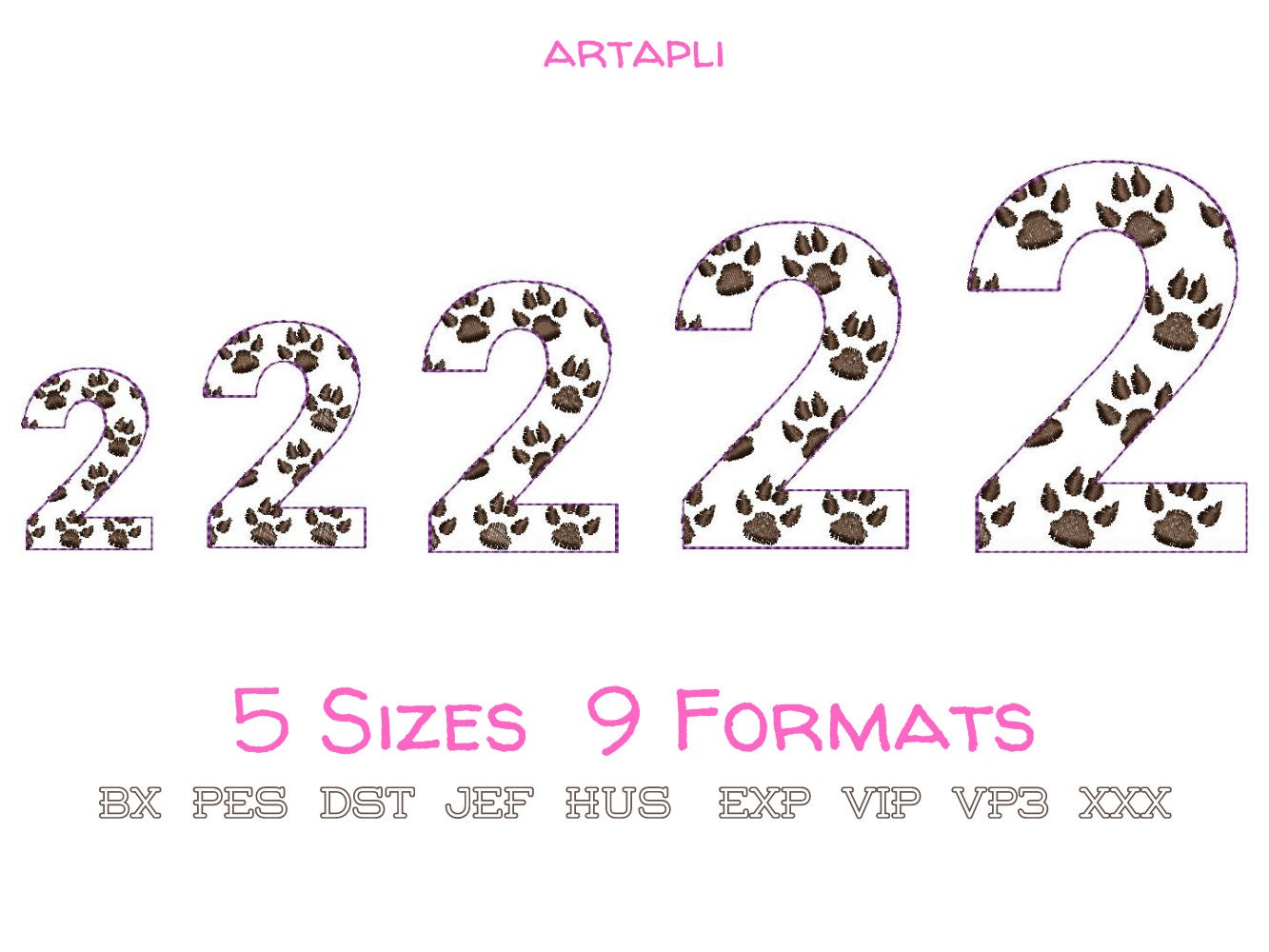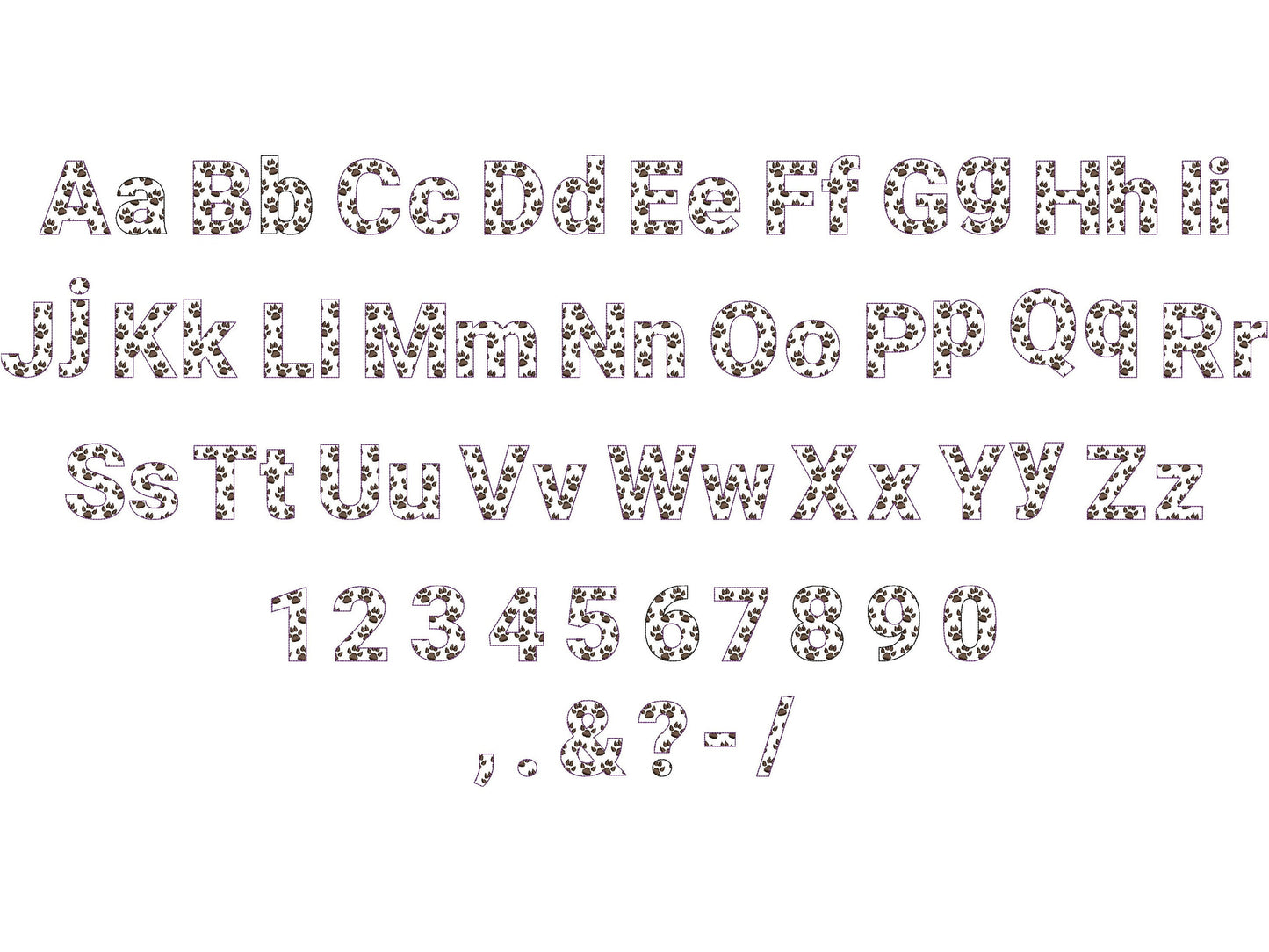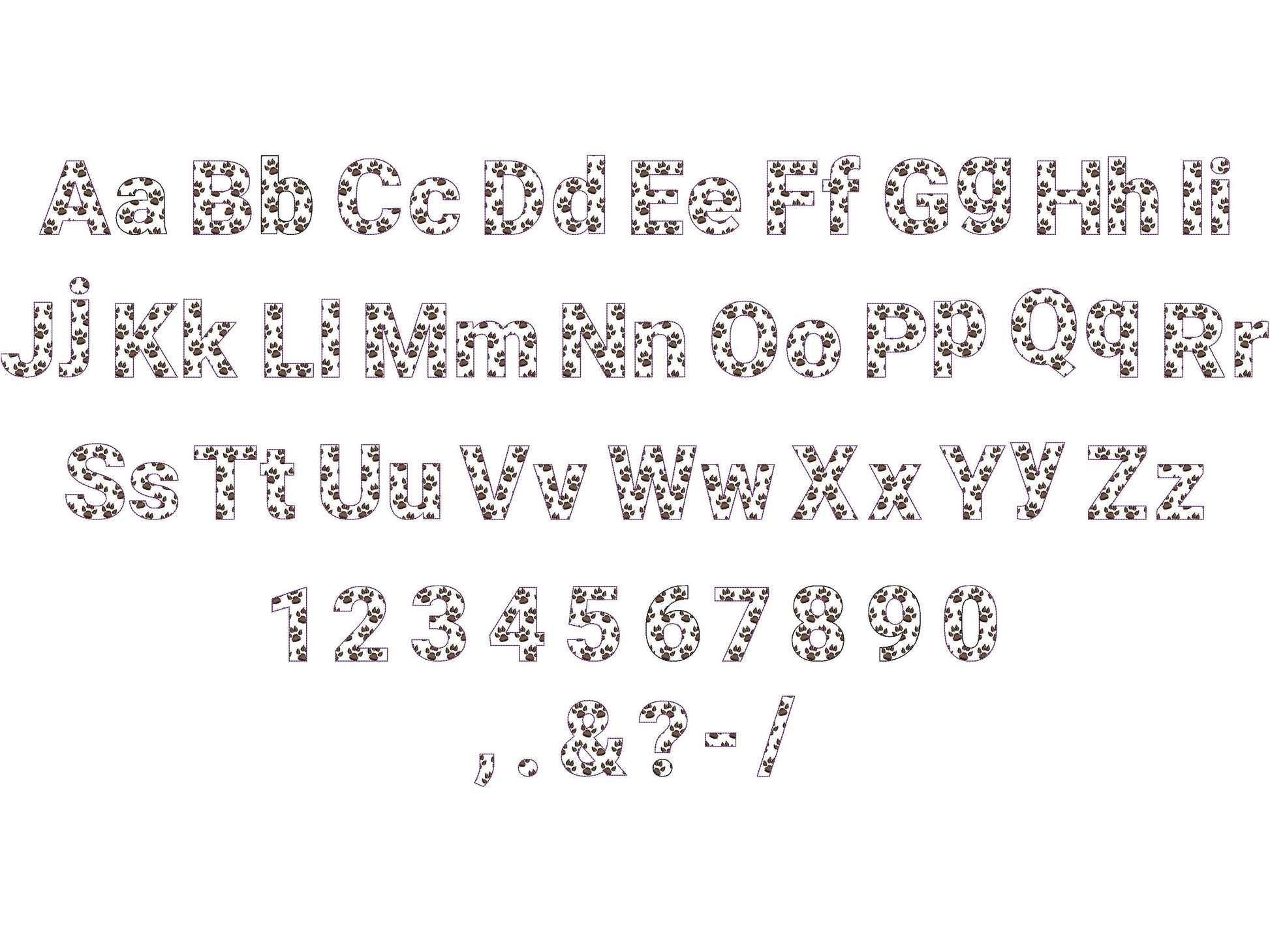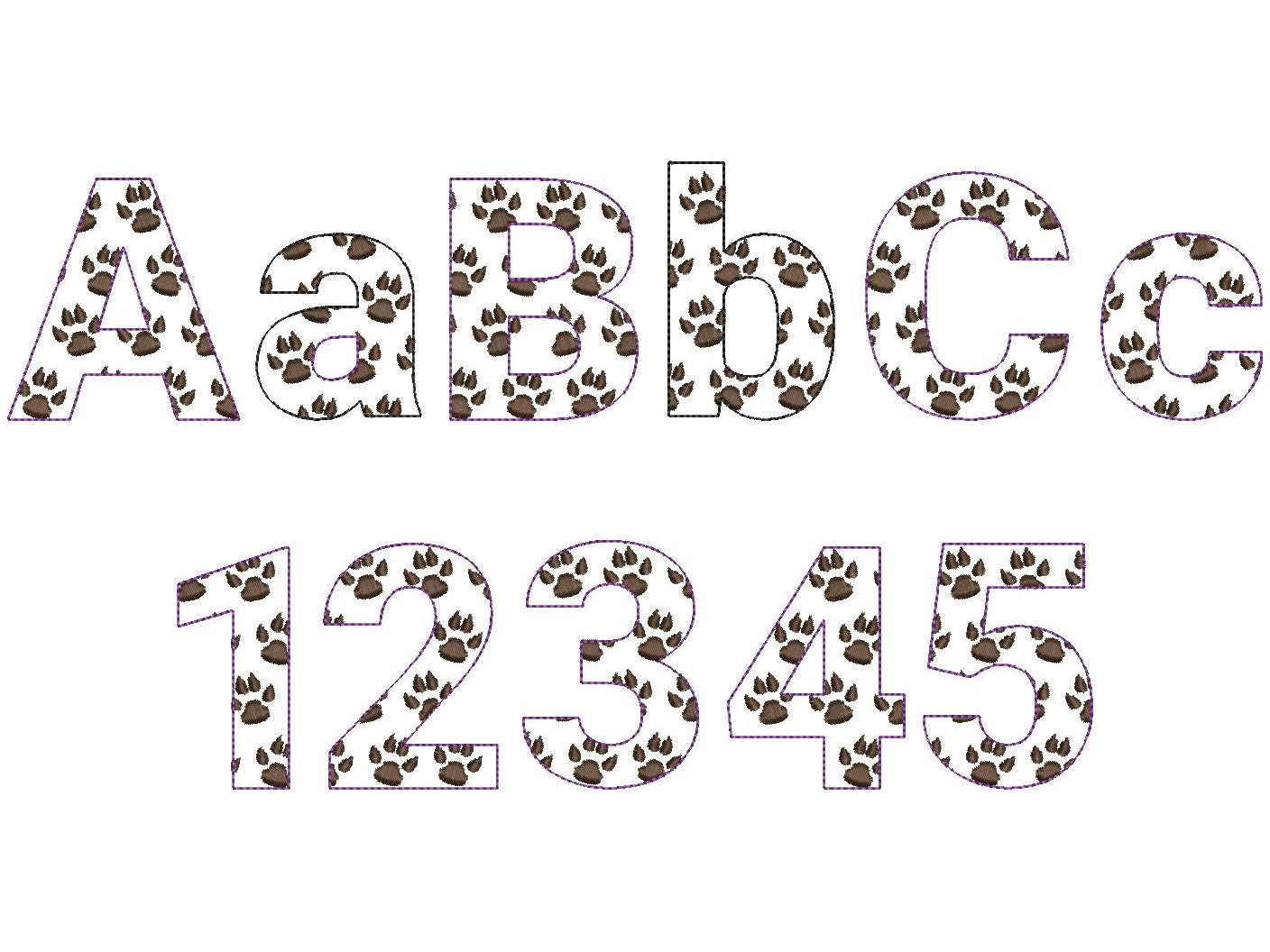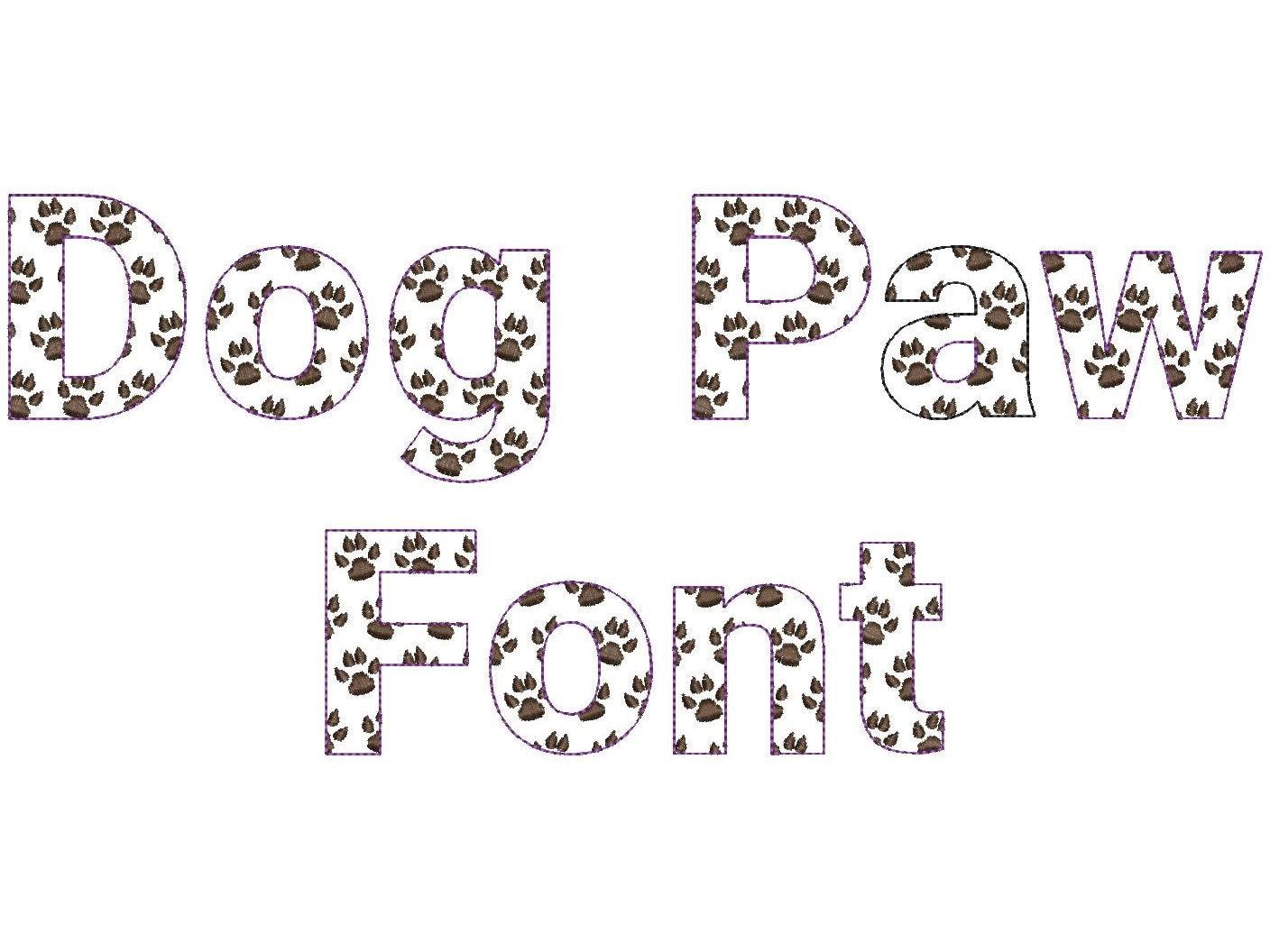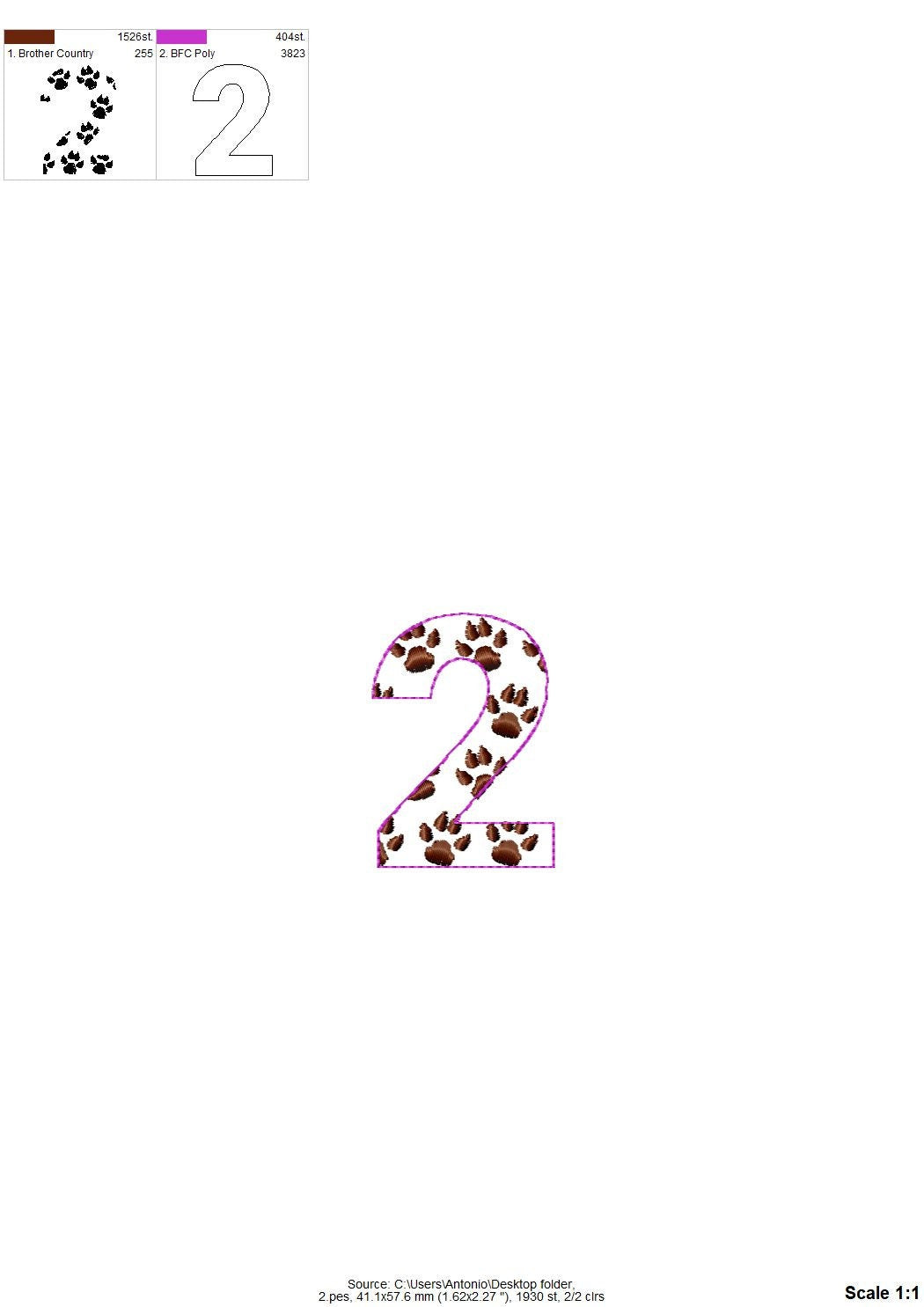
Or click to open the linkA dog paw patterned font in quick stitch that looks like lace, for pet lovers' and kids' names on shirts, bandanas and pillows.
Fill stitch paws are part of the embroidery and the fabric shows through; you can also stitch it as a raggedy edge applique. Uppercase and lowercase letters, numbers and punctuation in five sizes: 1.5, 1.8, 2.2, 2.7 and 3.2 inches.